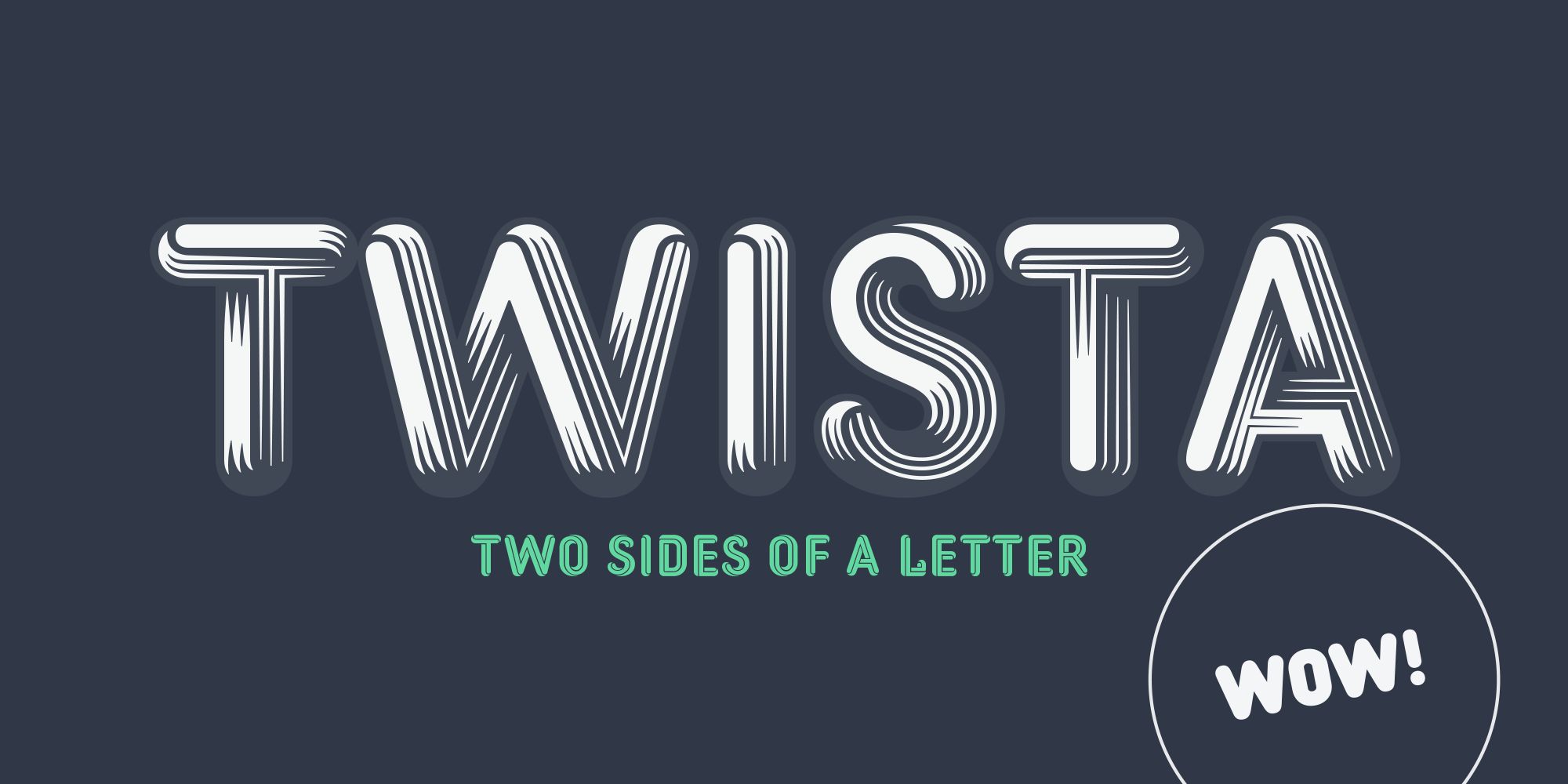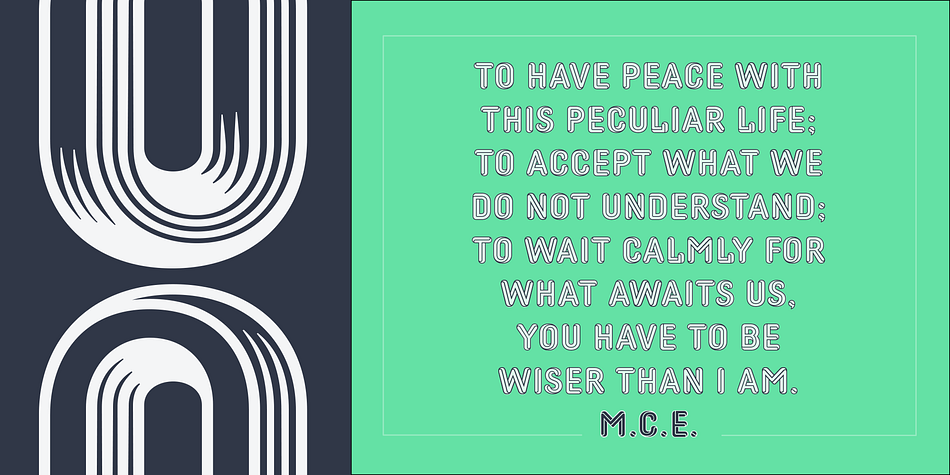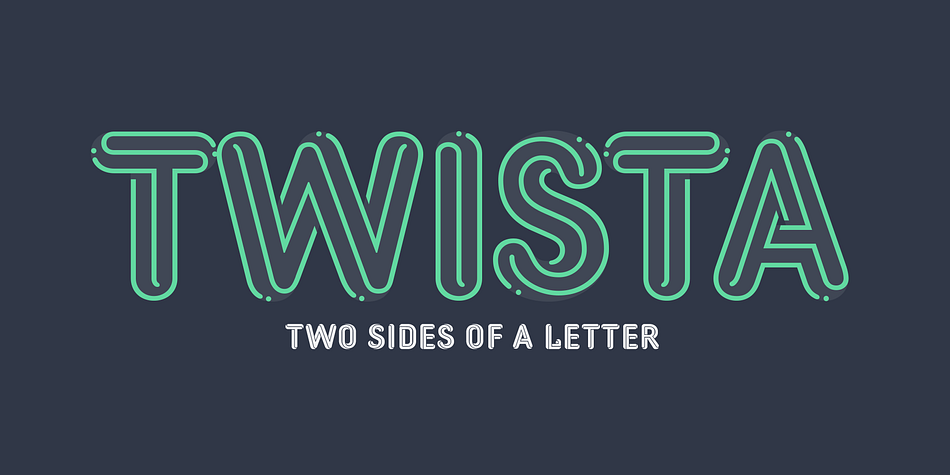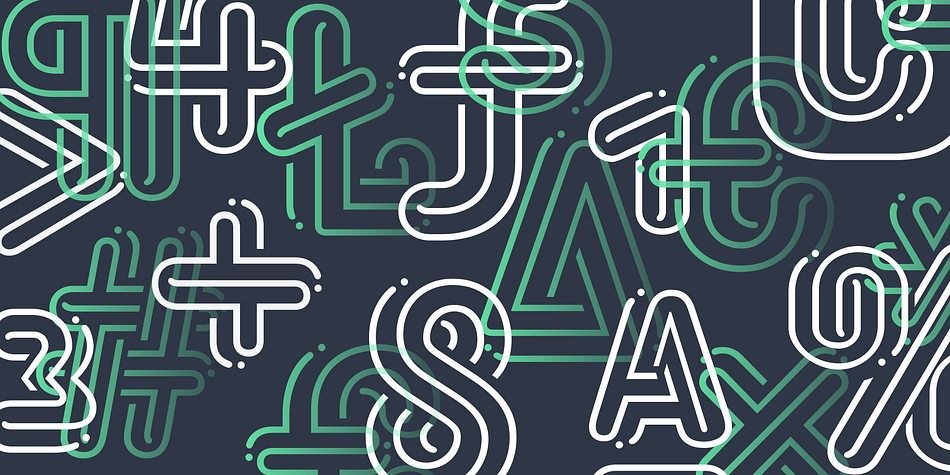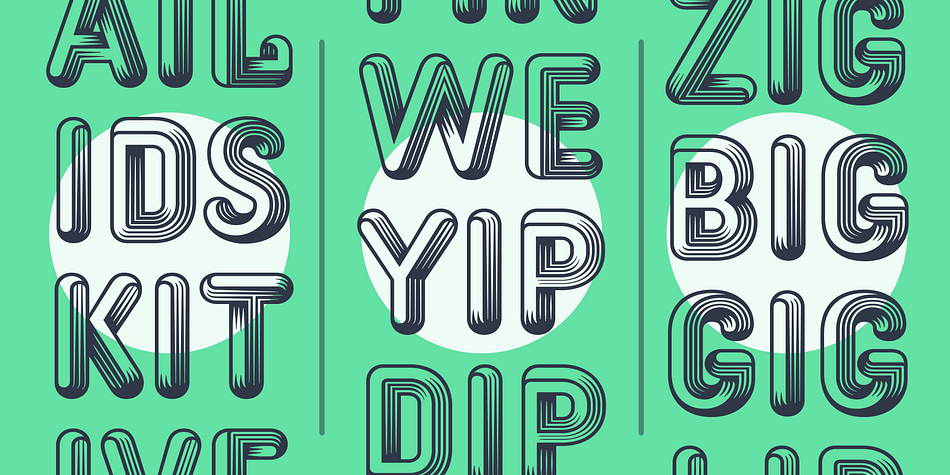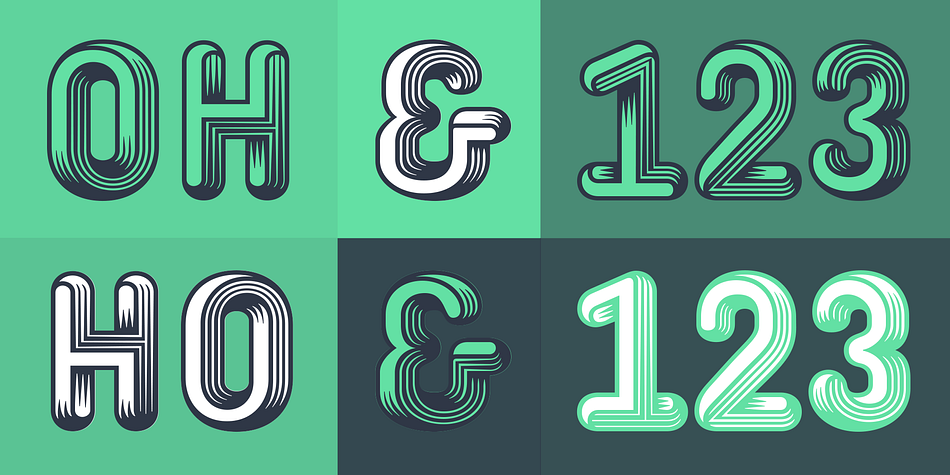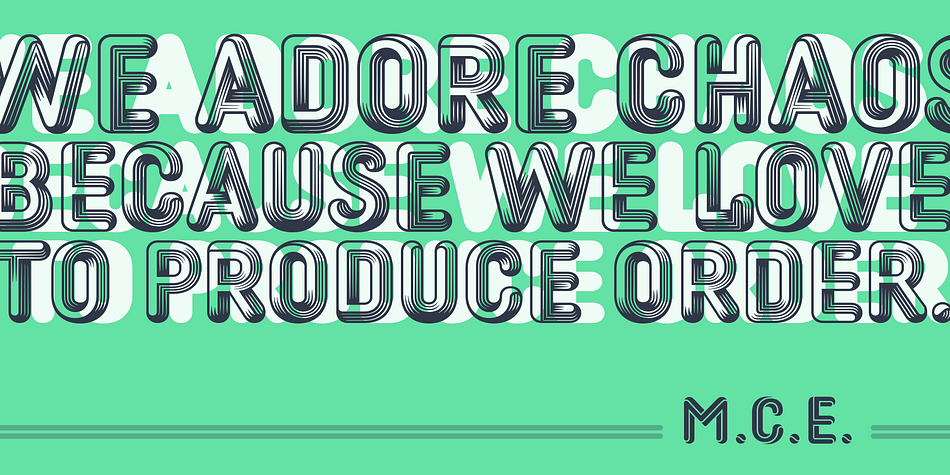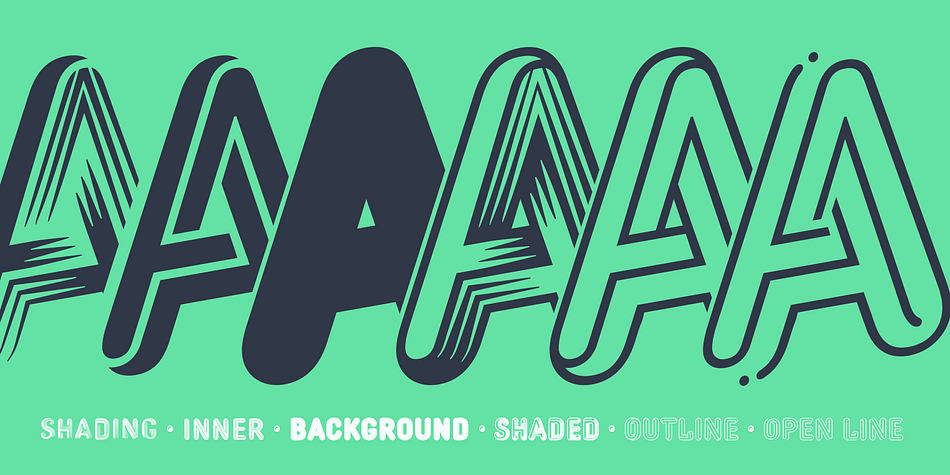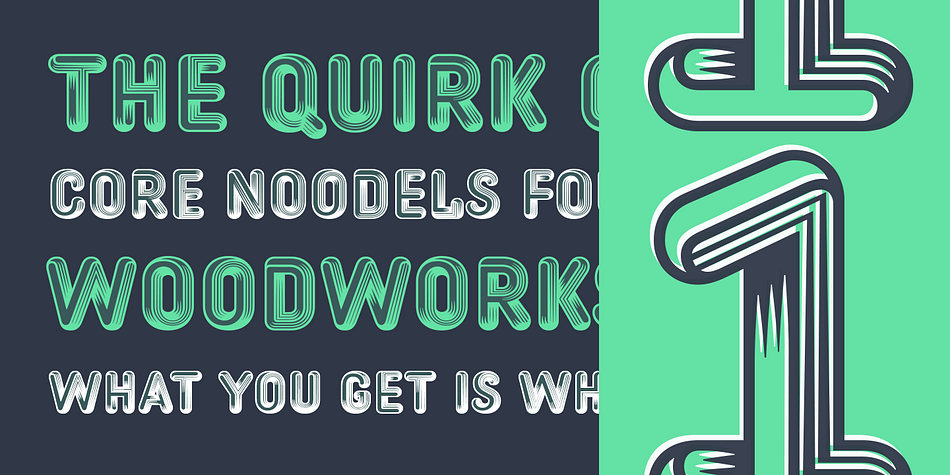
Twista
Twista is a display sans font family. This typeface has six styles and was published by Viktor Nübel.
Twista is a typeface from the realm of impossible constructions, from letters of illusions, the world of M.C. Escher. It takes its place in the tradition of typefaces playing with 3-dimensional drawings on a 2-dimensional surface. iÍt tricks the eye and attracts our gaze. Carefully choose which messages you set in Twista, they might be read with an invisible question mark added at the end. All letters and characters come in two versions. Twista’s six styles, might be used as single styles or could be combined as layers.